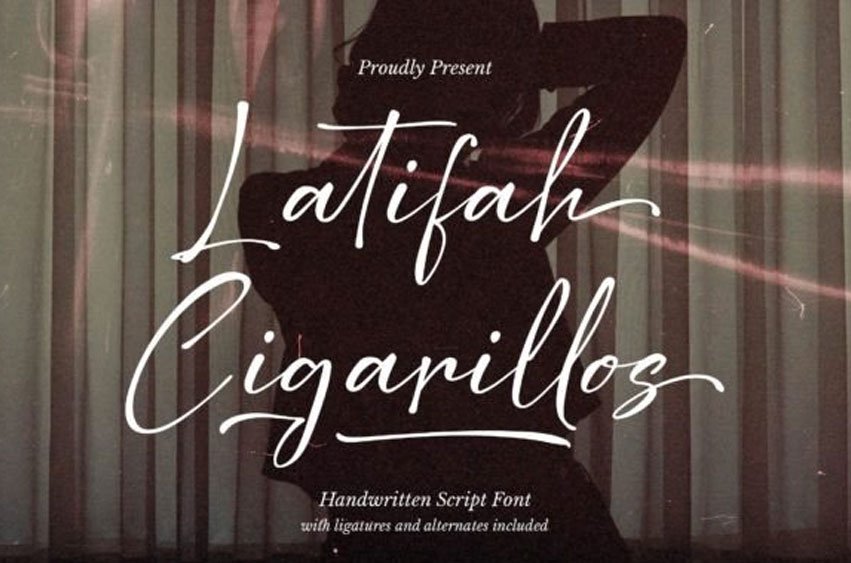
Latifah Cigarillos Font is a stylish and elegant handwritten script font. Its smooth, flowing lines make it perfect for adding a personal touch to invitations, greeting cards, or any creative project.
The font has a sophisticated look that mimics real handwriting, giving your text a unique and artistic feel.